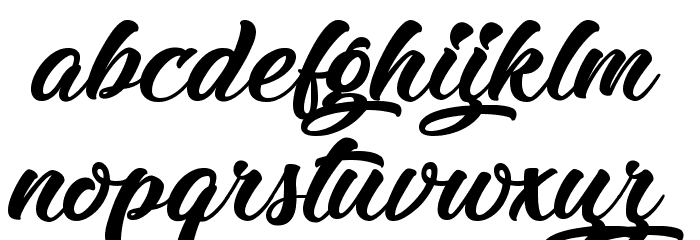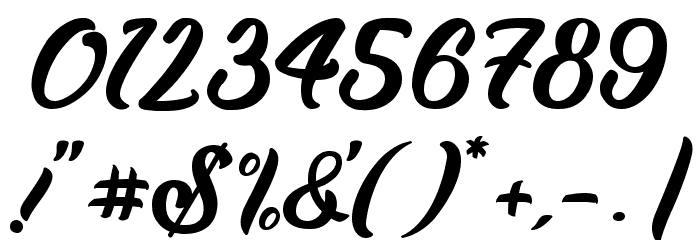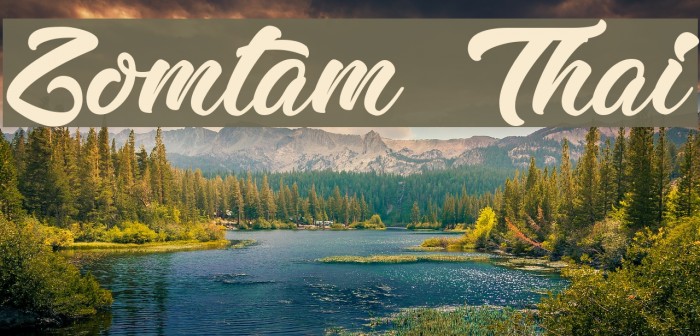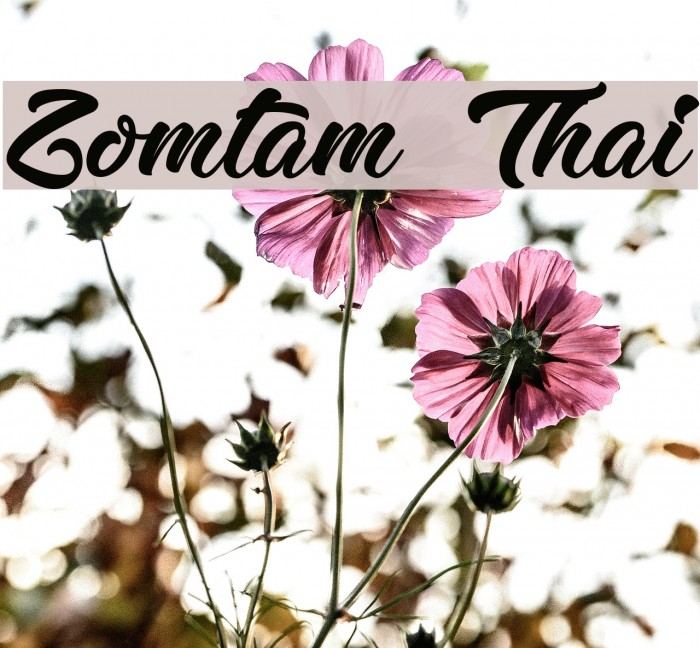
Zomtam Thai Font
This font exhibits a bold and expressive script style with a flowing, cursive design. The uppercase letters are elegantly crafted with sweeping curves and flourishes, while the lowercase letters maintain a consistent rhythm and fluidity. The numbers are bold and clear, matching the overall aesthetic of the alphabet. Special characters are designed with the same attention to detail, ensuring a cohesive look across all glyphs. The font's dynamic and artistic nature makes it suitable for creative and decorative purposes.
A bold, expressive script font with flowing, cursive design.
- Proposed Projects: Ideal for branding, invitations, greeting cards, and artistic projects requiring a personal touch.
- Use Case: Logos, Headlines, Invitations